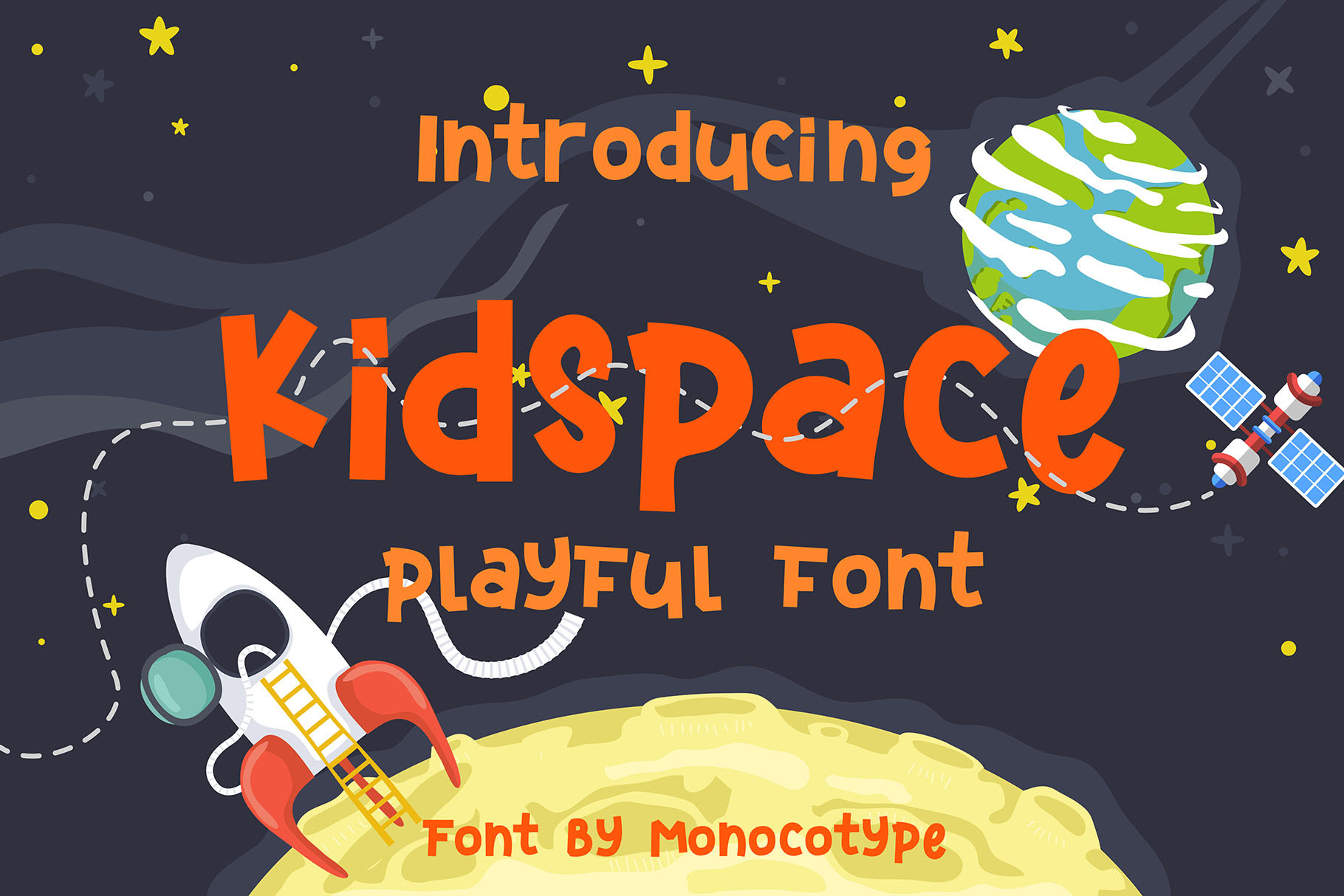
Kidspace is playful style font, with alphabet, numbers, symbol, and multilingual feature. You can use this on kids project, logo, social media post, book cover, and other project.